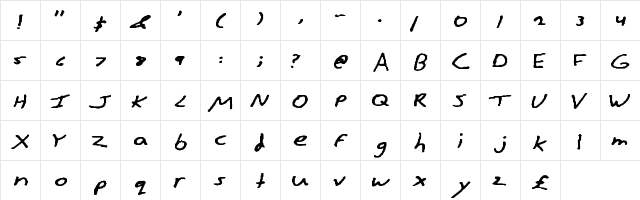
Guy Malachi Regular
Design Context for Guy Malachi Typeface
Guy Malachi is a composed and adaptable typeface that performs quietly and consistently across a wide range of design contexts.